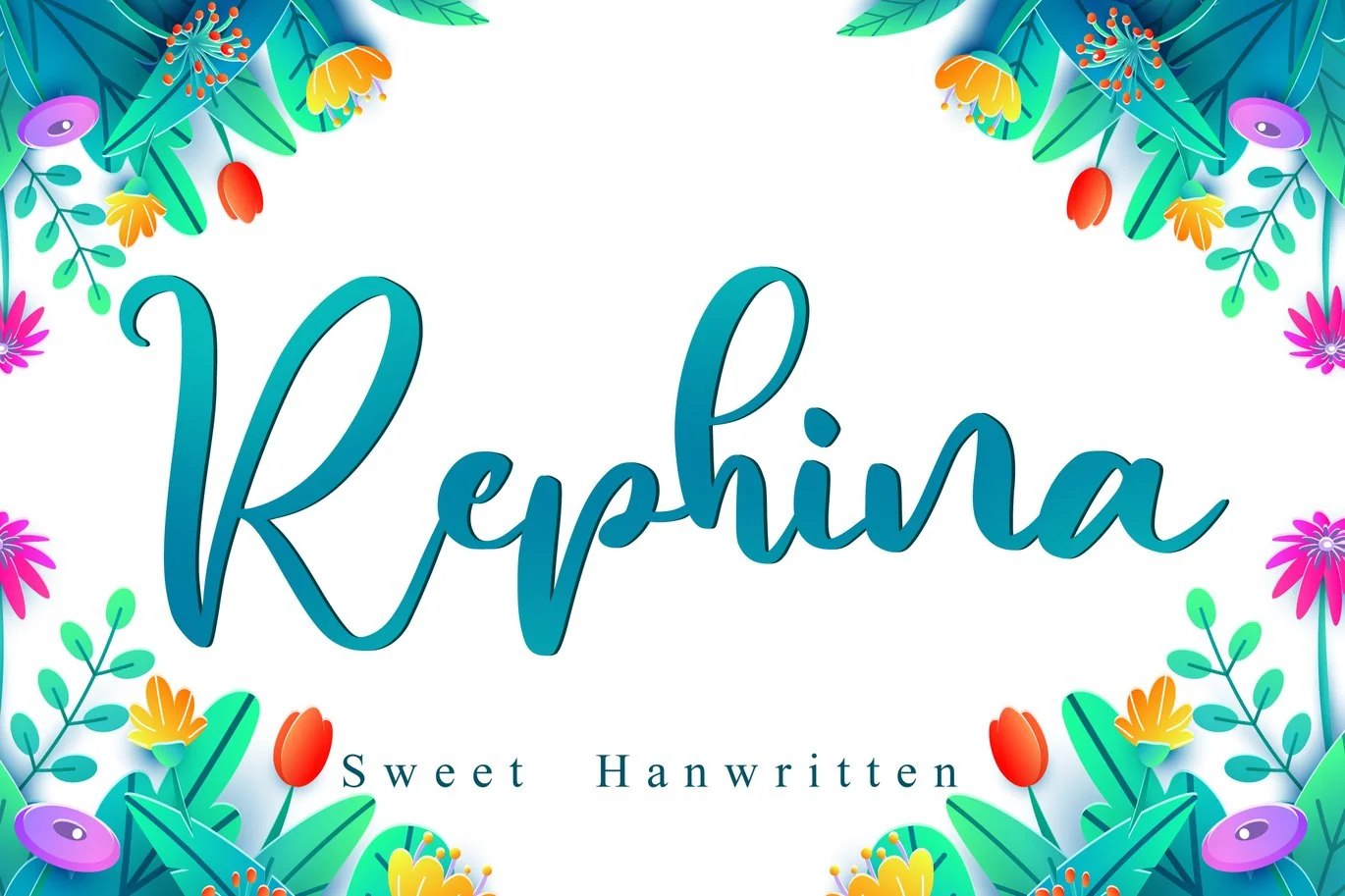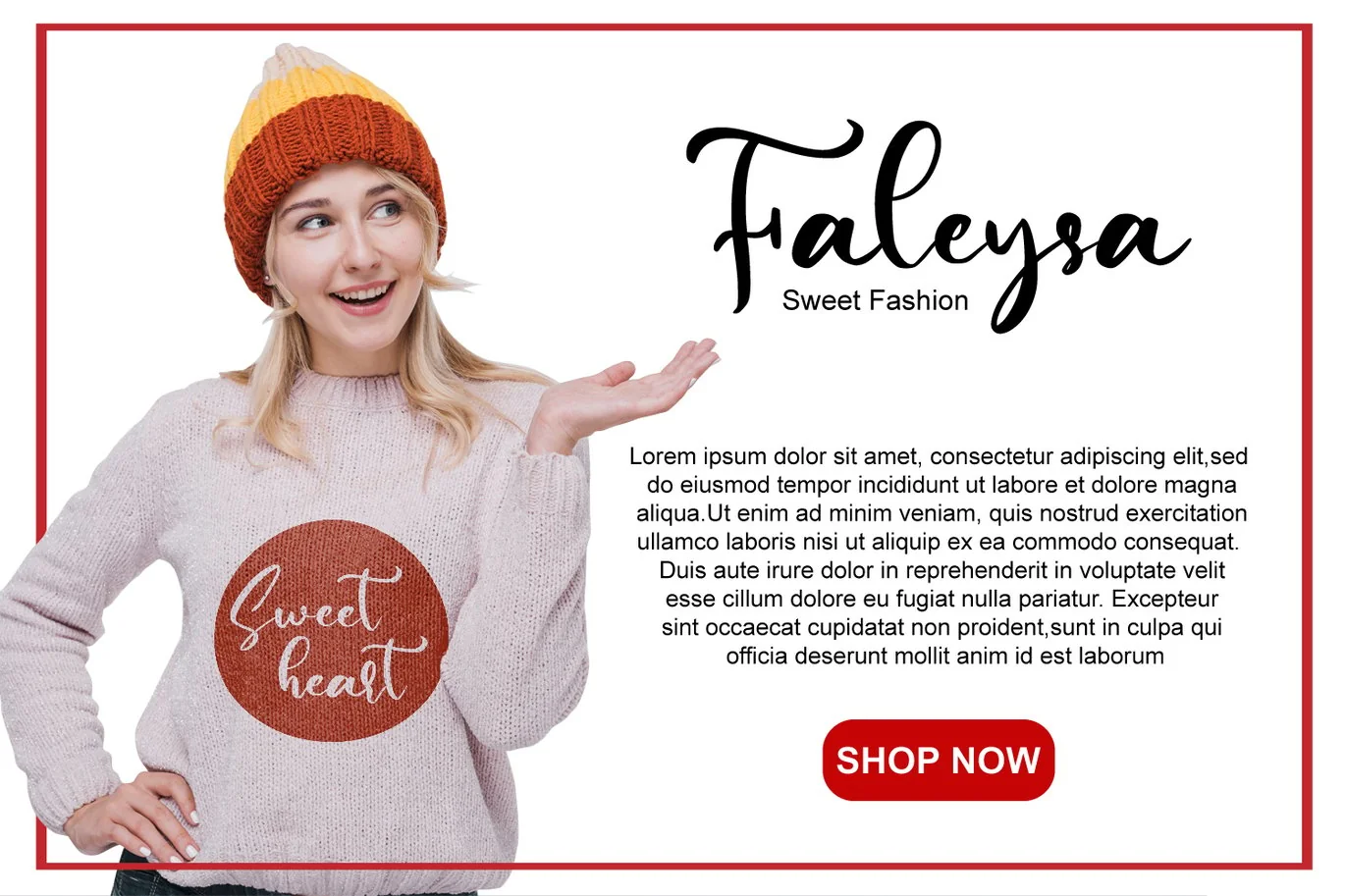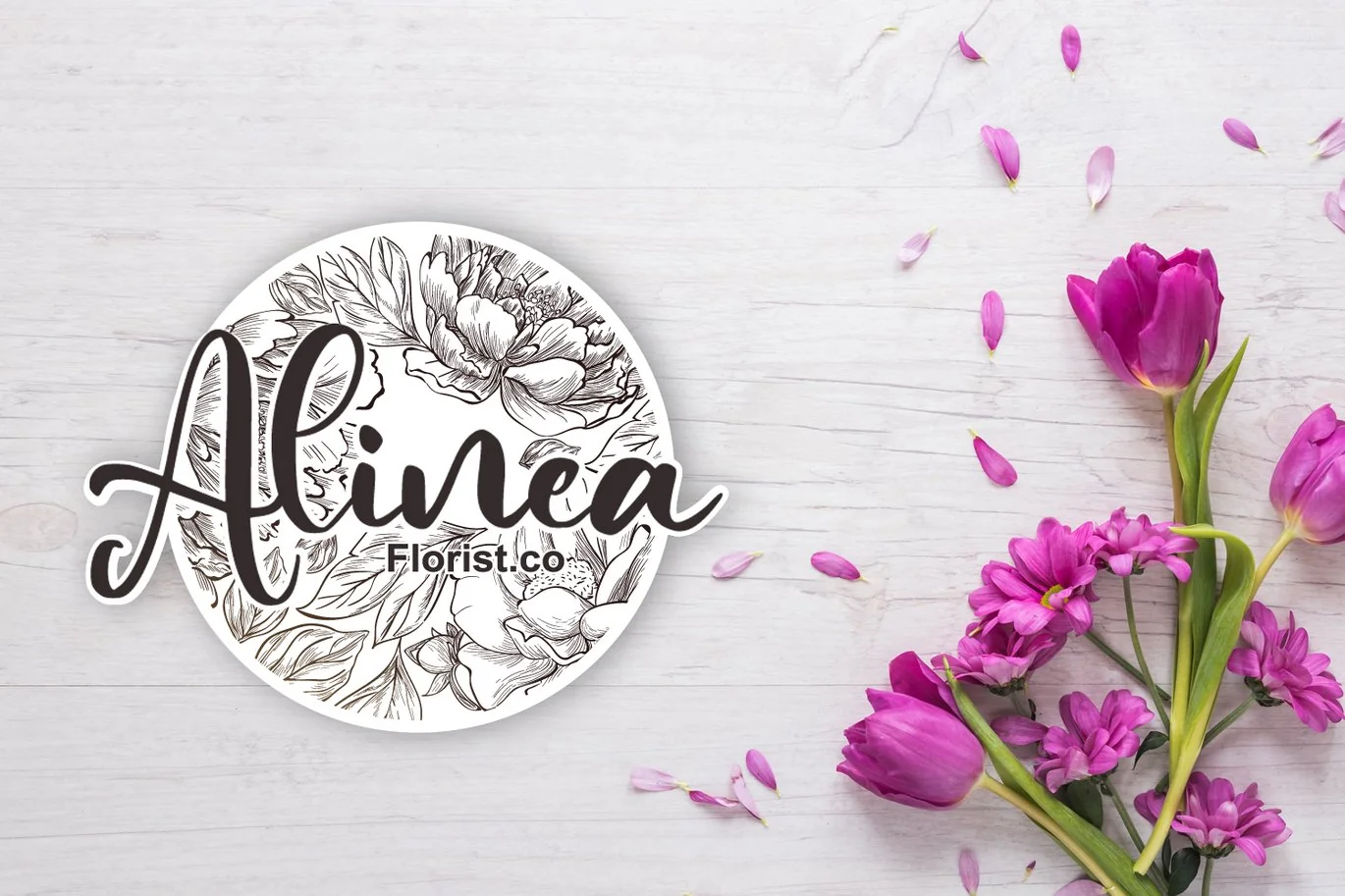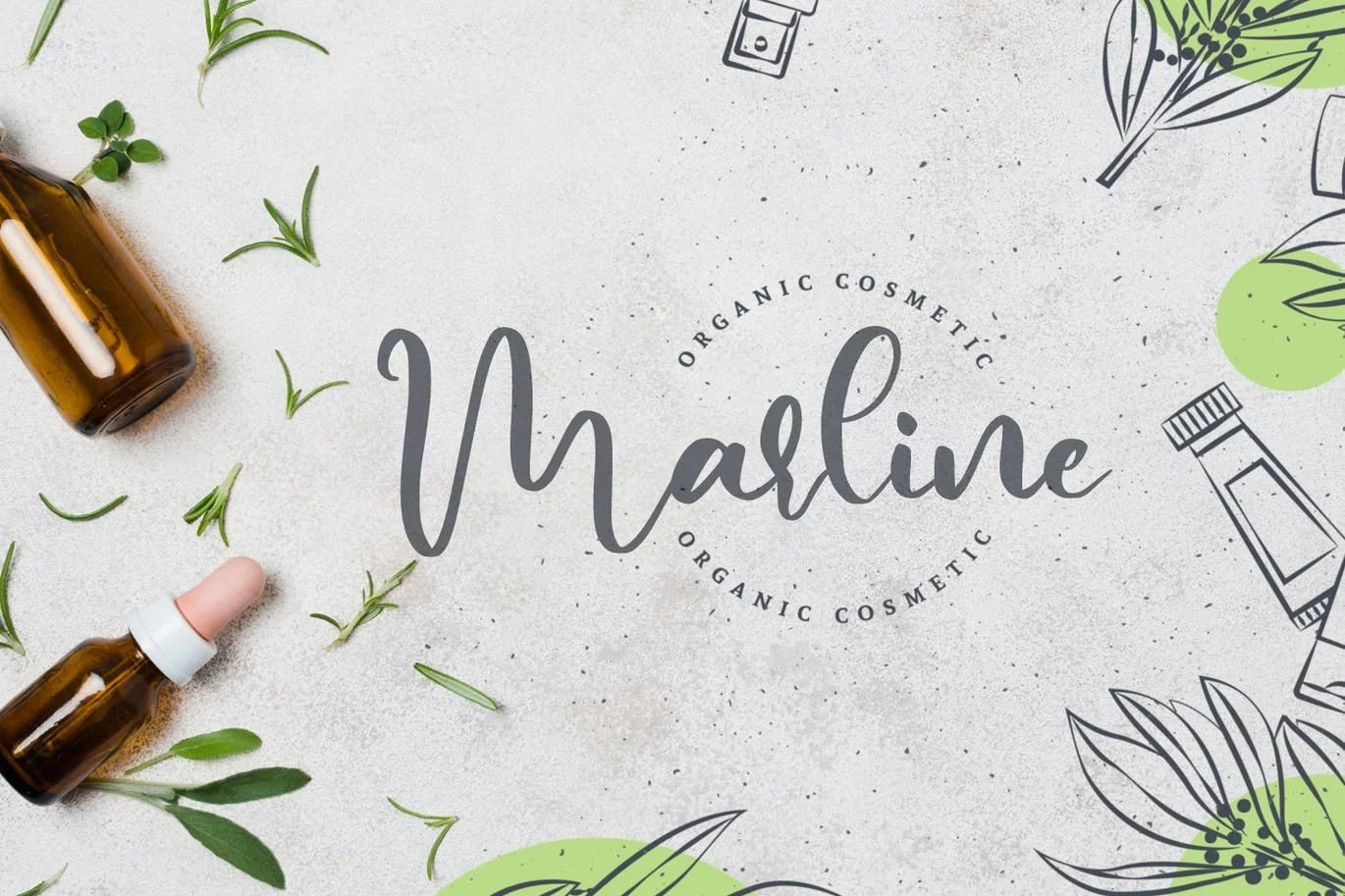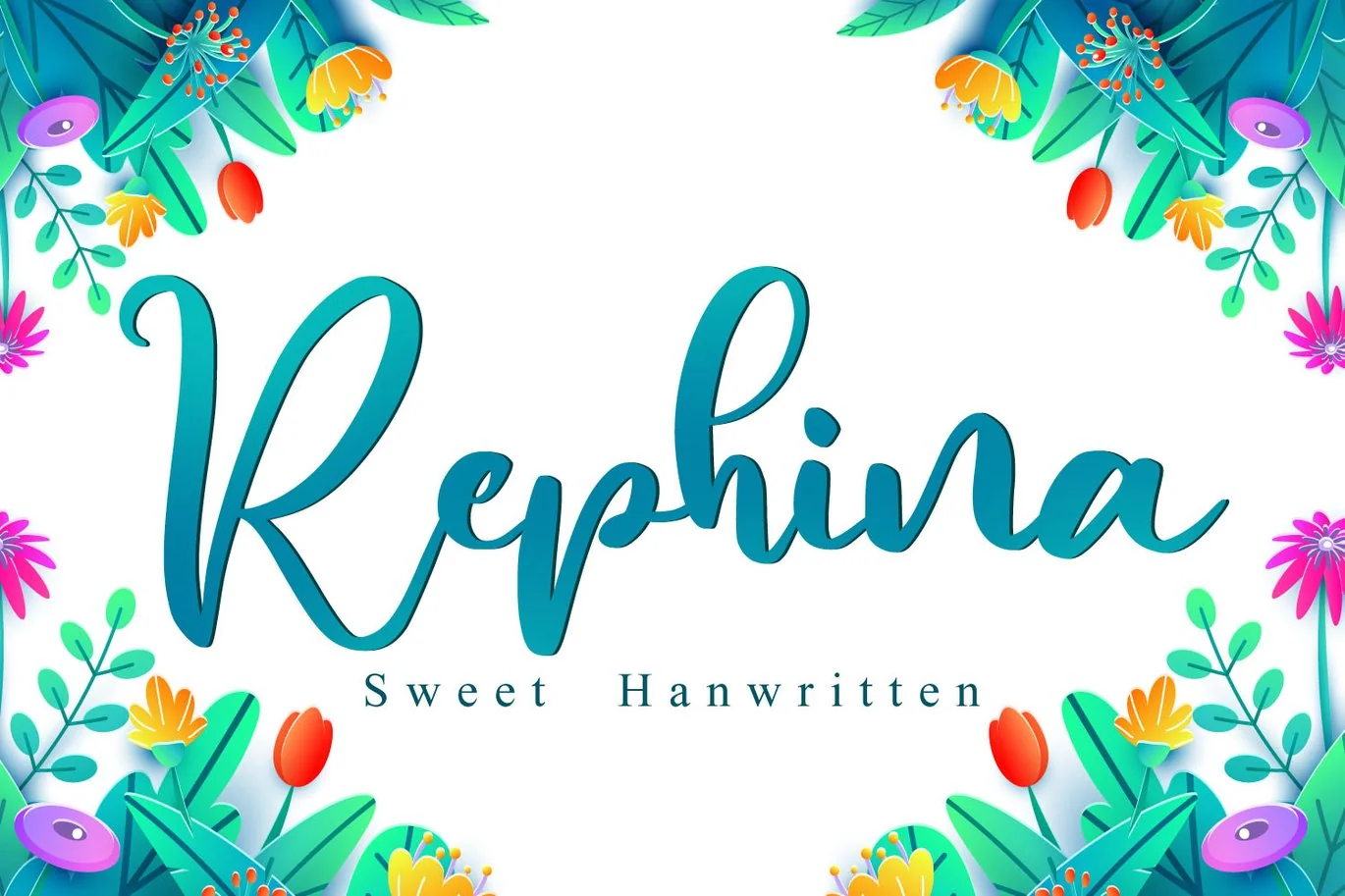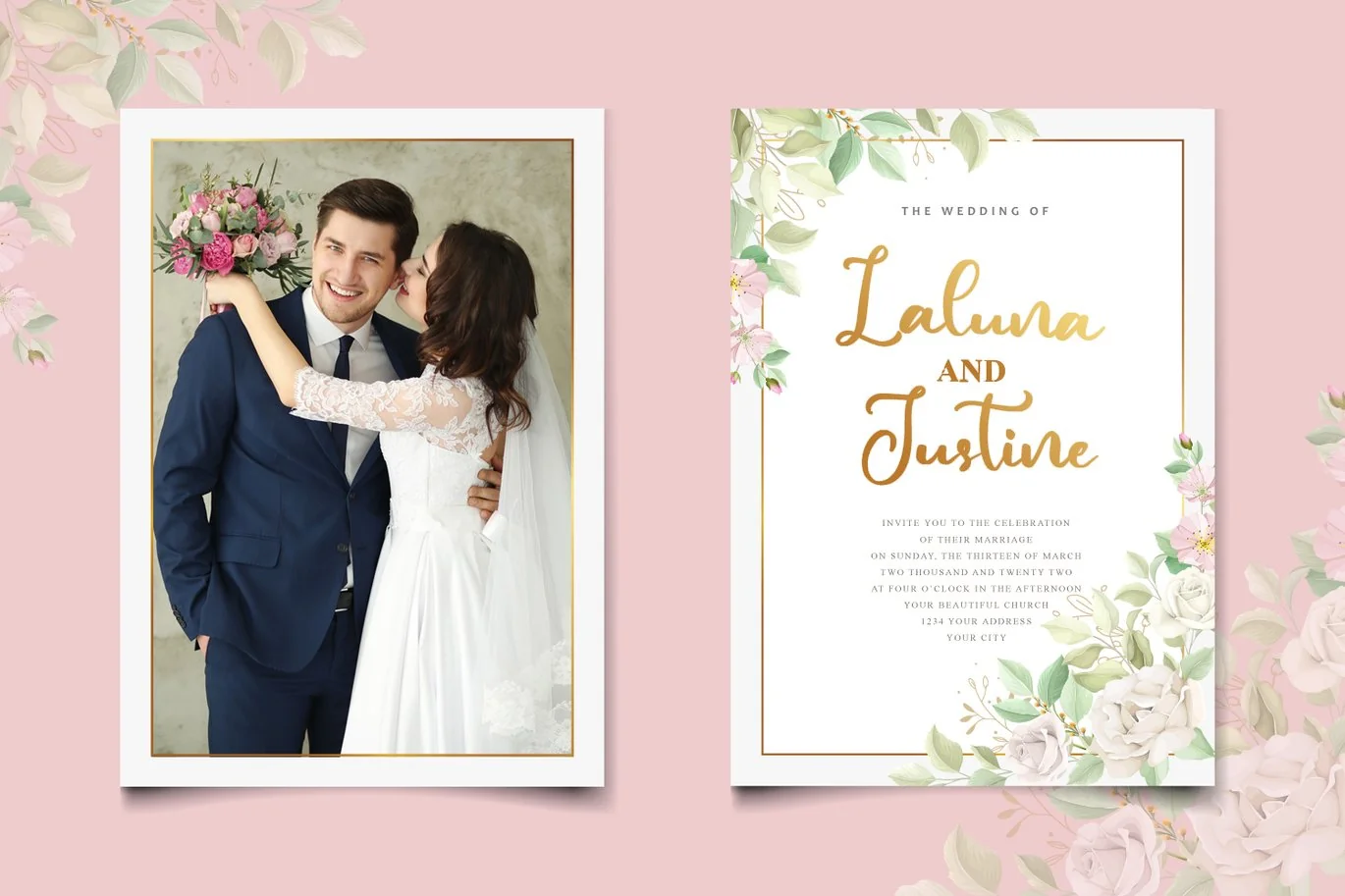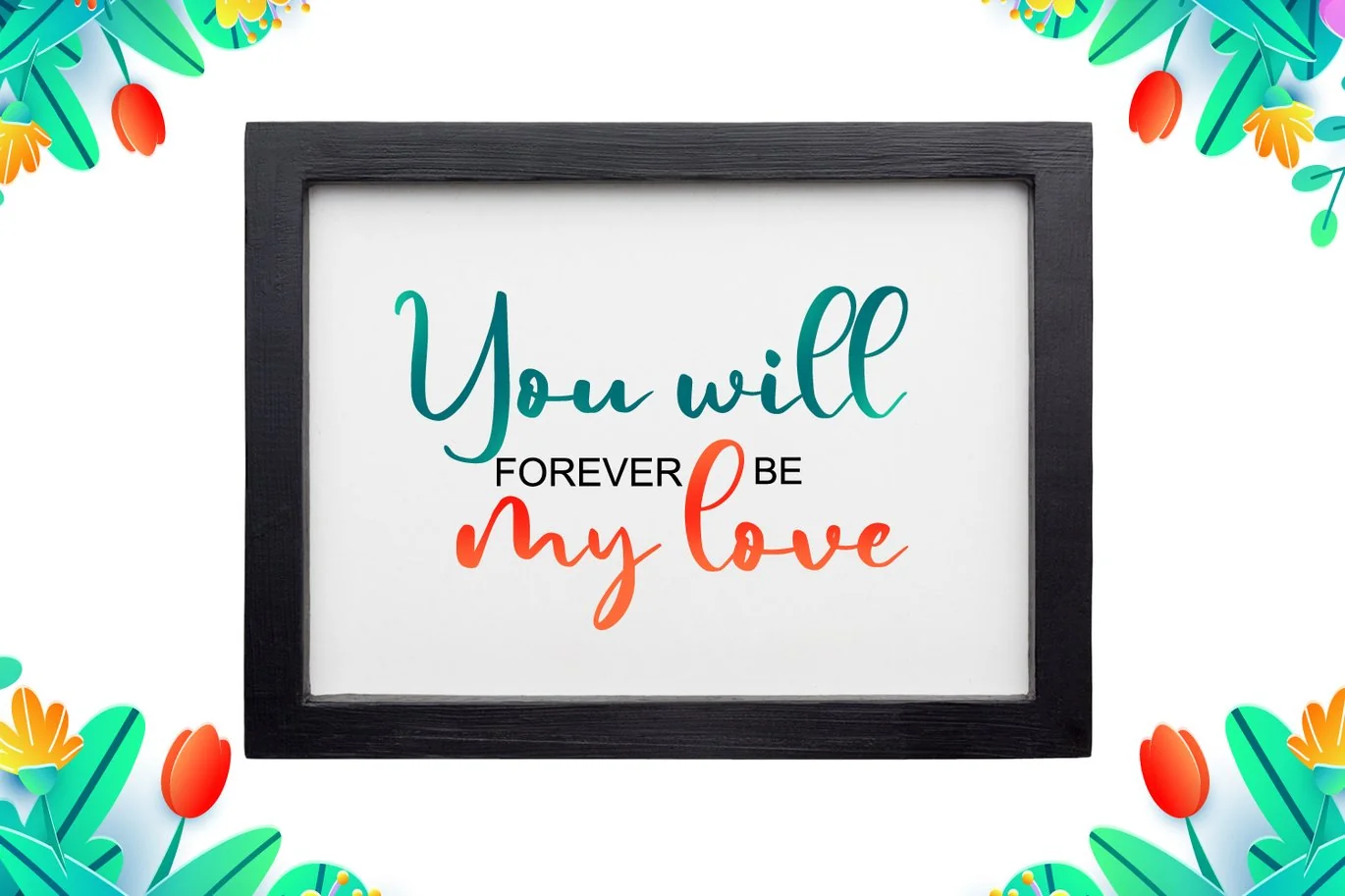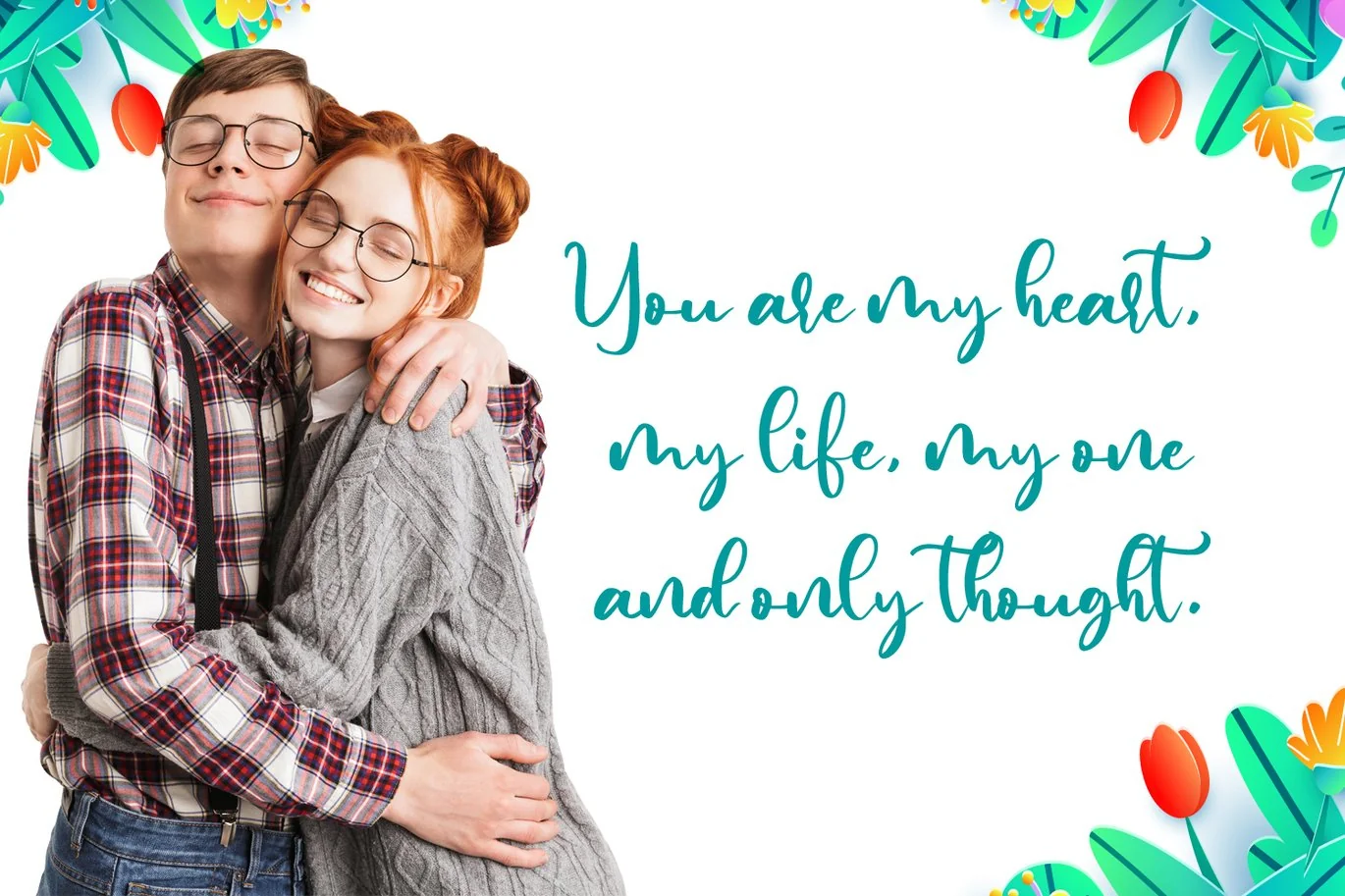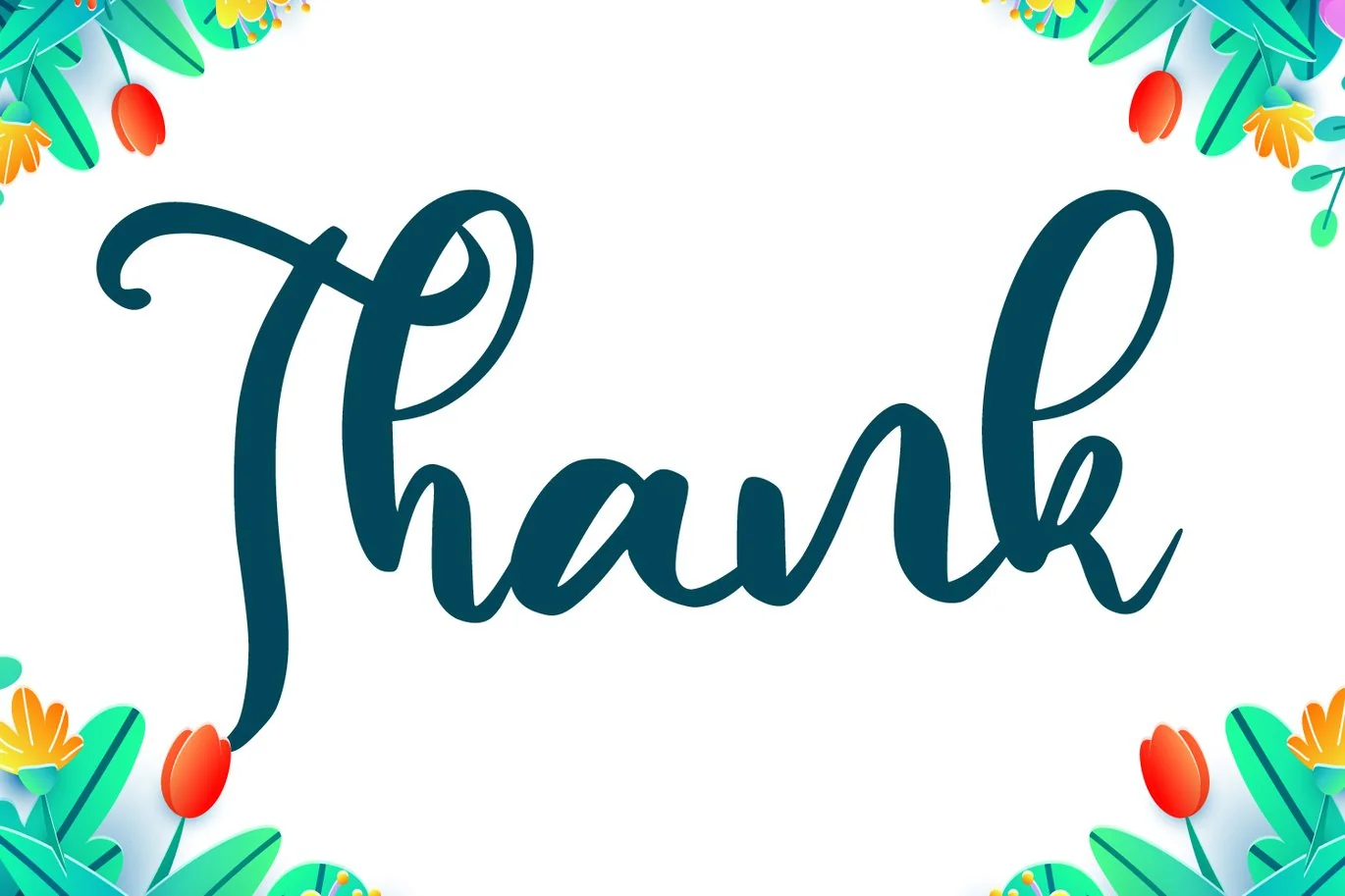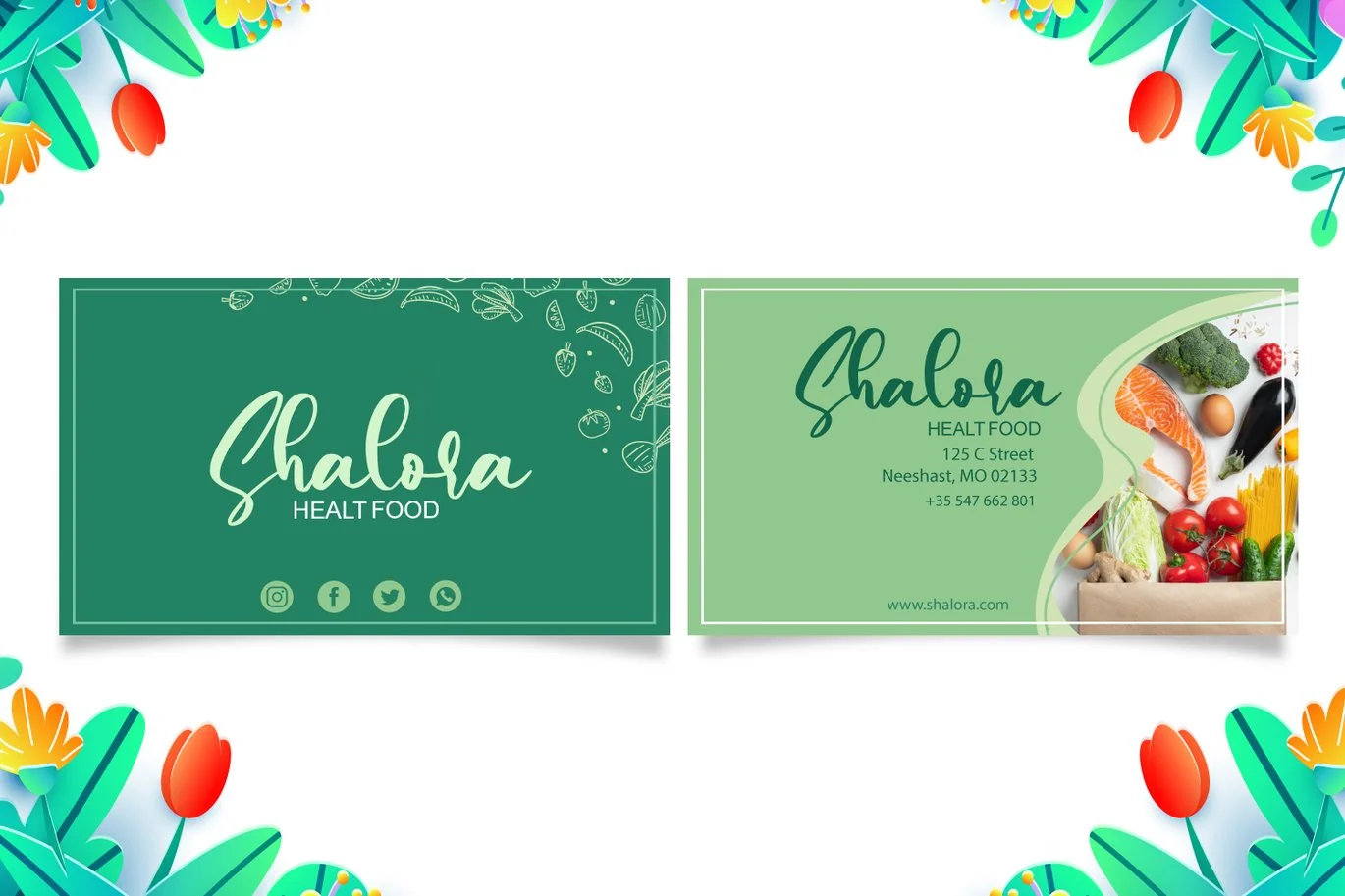
Rephina – Wedding Font
Rephina is a beautiful script font. It has a classy, elegant and modern look that can be used for logos, branding, invitations, stationery, wedding designs, social media posts, and much more! This font is PUA encoded which means you can access all of the glyphs and swashes with ease! It features a varying baseline, smooth lines, gorgeous glyphs and stunning alternates.
- Ligatures, Swash, Alternates